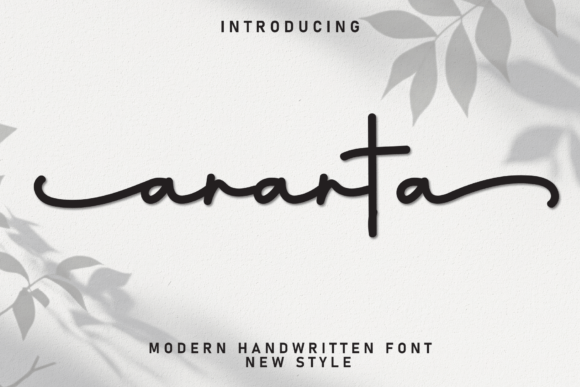
The Elusive Perfect Font: My Journey with Ananta
I’ll never forget the time I was working on a wedding invitation project, and my client asked for a font that was “elegant, yet modern; sophisticated, yet playful.” I scoured the internet, tried out dozens of fonts, but nothing seemed to fit the bill. That was until I stumbled upon Ananta, a stylish script font that has since become a go-to in my design arsenal.
What is Ananta Font?
Ananta is a stunning script font that embodies the perfect blend of elegance and contemporary charm. With its graceful strokes, fluid curves, and meticulously crafted letterforms, it brings to mind the beauty of hand-drawn calligraphy with a modern twist. This font is ideal for a variety of design projects, including logos, invitations, packaging, and social media graphics.
An Honest Review of Ananta Font
The Good: What I Love About Ananta ✨
• ✅ Elegant and sophisticated: Ananta adds a refined touch to any design, making it perfect for high-end clients or special occasions.
• ✅ Versatile: This font works beautifully in a variety of contexts, from digital to print, and in different sizes.
• ✅ Easy to read: Despite its elegant nature, Ananta remains highly legible, even at smaller font sizes.
• ✅ Unique, yet familiar: The font’s modern take on traditional calligraphy makes it stand out without being too over-the-top.
The Not-So-Good: A Few Quirks 🤔
• ⚠️ Limited use in body text: While Ananta shines in headlines and titles, it may not be the best choice for longer blocks of text.
• ⚠️ Some letters may require manual kerning: As with any script font, you might need to adjust the spacing between certain letters for optimal results.
The Story Behind Ananta: Designer Inspiration
The story goes that Ananta was created by a designer who wanted to capture the essence of hand-drawn calligraphy in a digital font. Inspired by the flowing lines of traditional calligraphy, the designer aimed to create a font that was both elegant and approachable. The result is a font that exudes refinement and sophistication, making it perfect for a wide range of design projects.
Frequently Asked Questions (FAQs) About Ananta Font
What type of projects is Ananta best suited for? Ananta is ideal for logos, invitations, packaging, and social media graphics that require an elegant and sophisticated touch.
Is Ananta a difficult font to read? No, despite its elegant nature, Ananta remains highly legible, even at smaller font sizes.
Can I use Ananta for body text? While Ananta shines in headlines and titles, it may not be the best choice for longer blocks of text.
Does Ananta support OpenType features? Yes, Ananta supports OpenType features like ligatures and stylistic alternates, which can add more flair to your design.
Author Misterletter.co